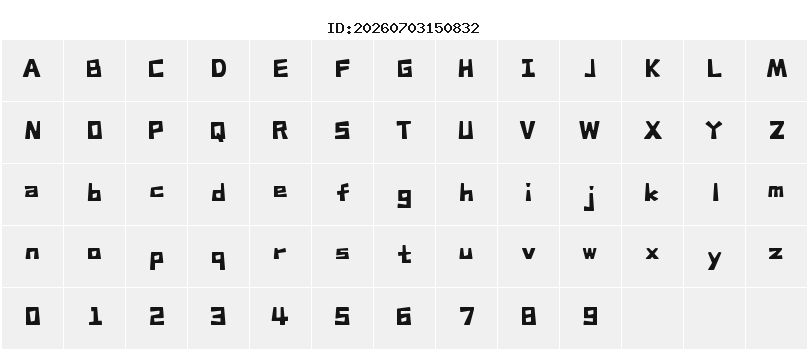
278-上首绘梦体 Preview
• Font Name: 278-上首绘梦体
• Font ID: 278-SS HUI MENG Ti:Version 4.00
• Full Font Name: 278-上首绘梦体
• Version: Version 4.00 December 25, 2023
• PostScript Name: 278-SSHUIMENGTi
• Character Count: 7567
• Manufacturer: 上首造字
About 278-上首绘梦体.ttf
278-上首绘梦体.ttf is a modern, elegant sans-serif font designed for ultimate readability and visual harmony. Perfect for branding, headlines, web design, and print materials.